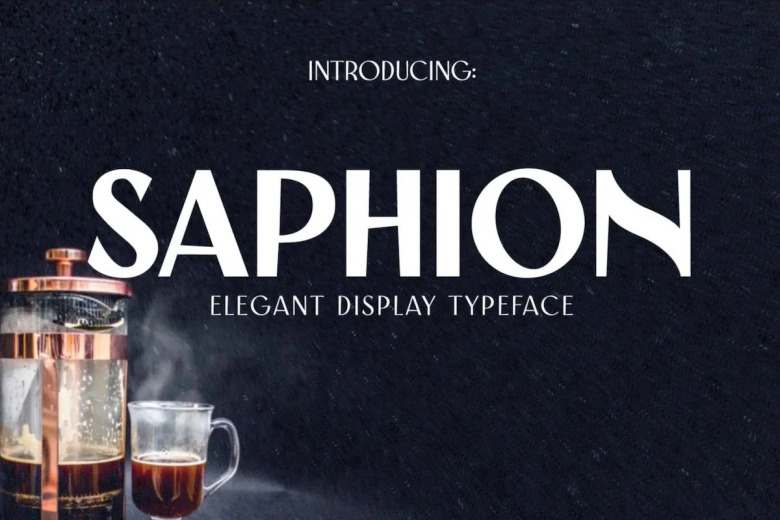
Saphion Font
The Saphion is a modern sans display font, Great for Brading, Logo projects, Wedding designs, Social Media Post and any other design that needs a fun and cleaver twist. This font idea is a modern elegant san serif font It was a homage to vintage typography.
This typeface can serve as display as well as legible font type in text-heavy projects such as magazines & blogs etc.
Saphion Display Font